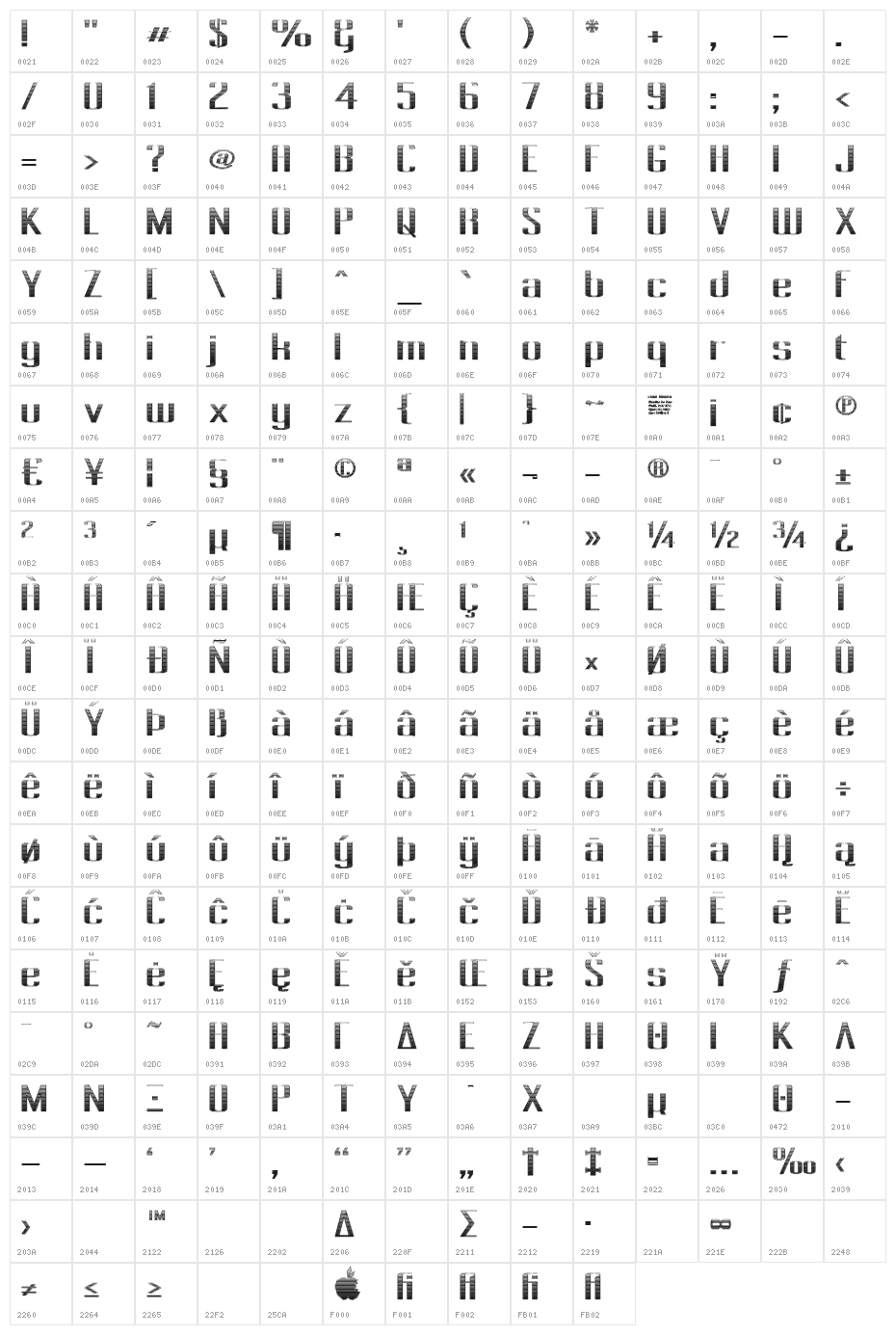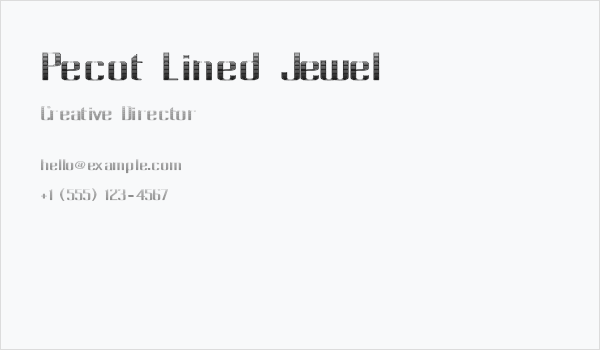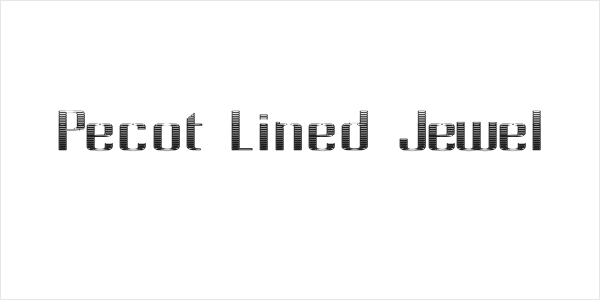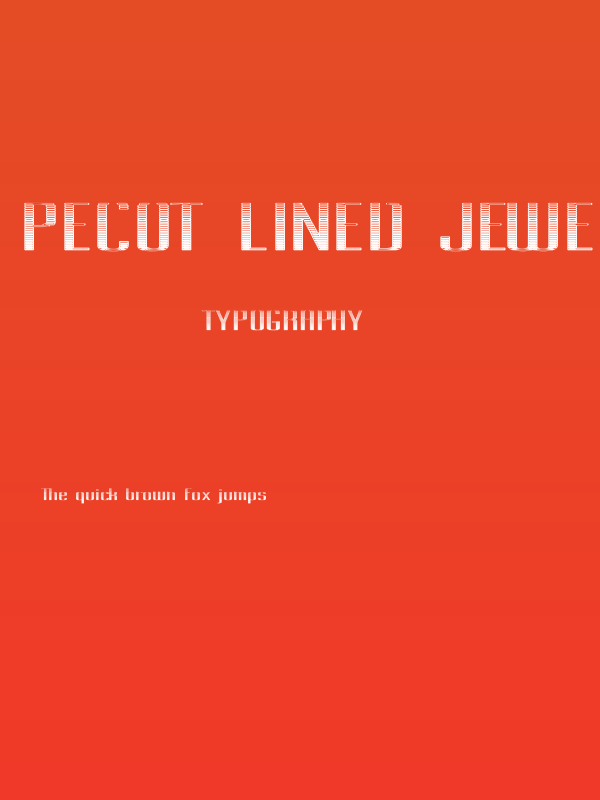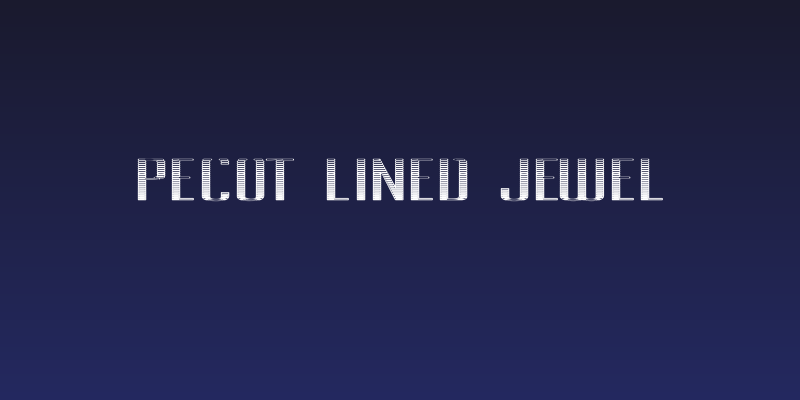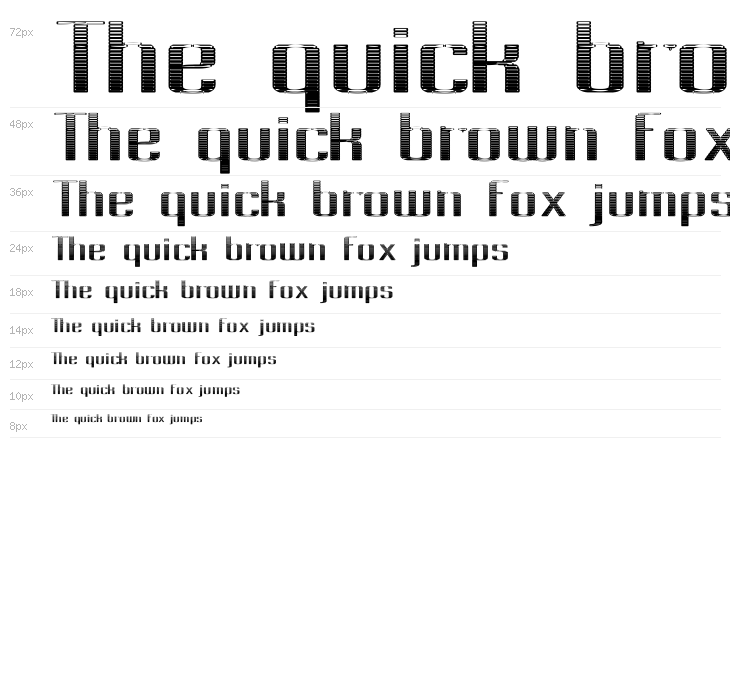
Pecot Lined Jewel Font
Pecot Lined Jewel Description
This font features a distinctive lined pattern within each character, creating a textured and dynamic appearance. The uppercase and lowercase letters maintain a consistent height and width, contributing to a balanced and cohesive look. The numerals and special characters follow the same lined style, ensuring uniformity across all glyphs. The font's design is bold and eye-catching, making it suitable for attention-grabbing headlines and titles. Its unique lined detail adds depth and interest, setting it apart from more traditional typefaces.
| Proposed Projects | Ideal for branding, posters, and any design project requiring a standout, modern typeface. |